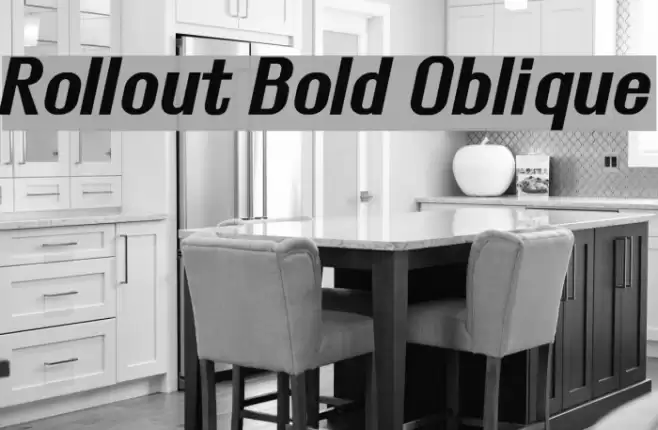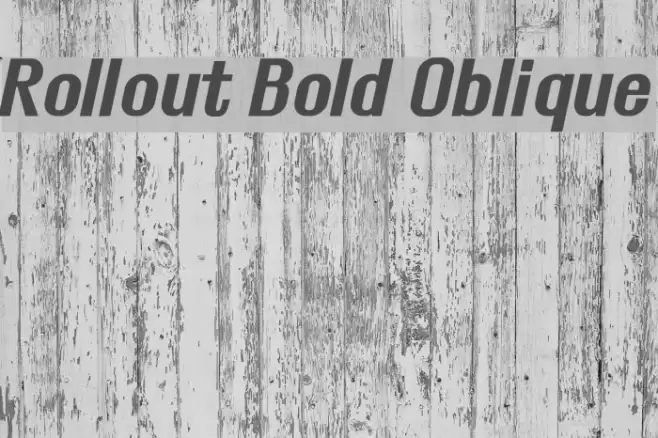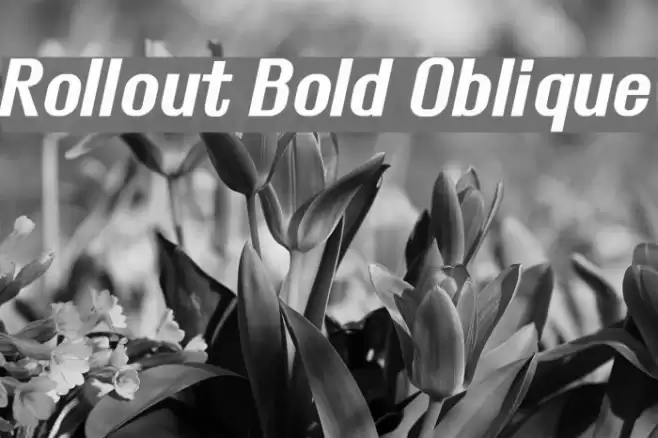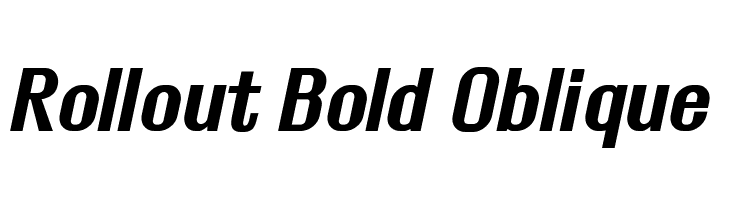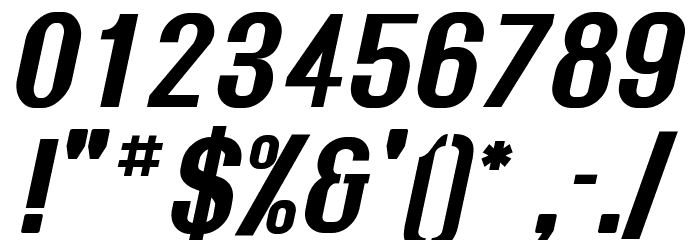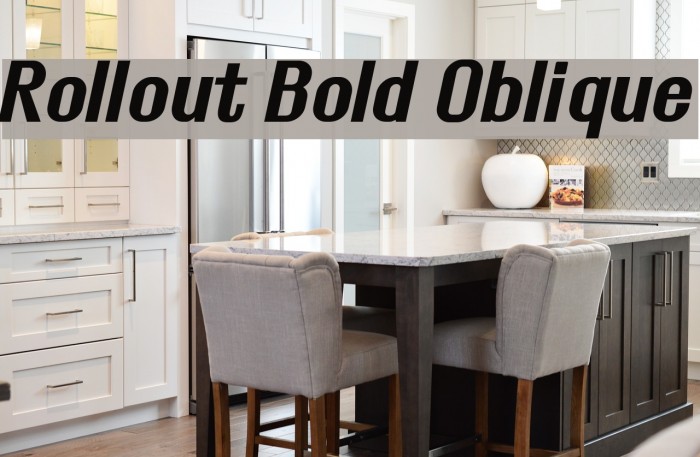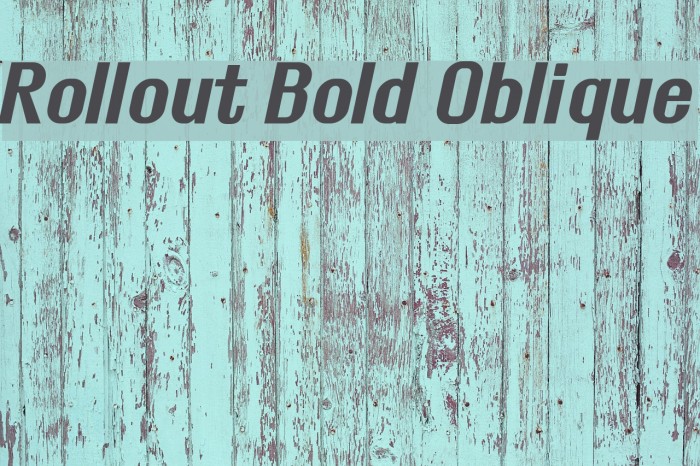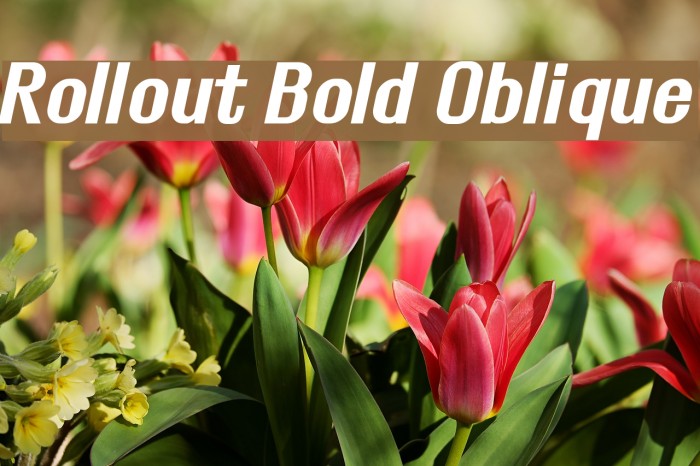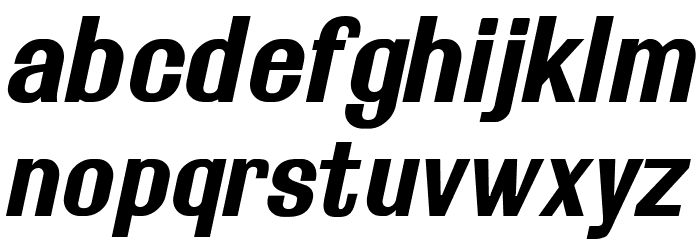
Rollout Bold Oblique Font
Rollout Bold Oblique Description
This font exhibits a bold and dynamic style, characterized by its oblique orientation that adds a sense of motion and energy. The letters are thick and impactful, making them highly legible and attention-grabbing. The uppercase and lowercase letters maintain a consistent slant, providing a cohesive look across the typeface. The numerals and special characters follow the same bold and slanted design, ensuring uniformity throughout. The overall appearance is modern and assertive, suitable for making strong visual statements.
A bold, oblique font with a modern and dynamic style from Sans Serif fonts.
- Proposed Projects: Ideal for sports branding, dynamic advertisements, headlines, and posters where a strong and energetic presence is needed.
- Use Case: Headlines, Logos, Advertisements